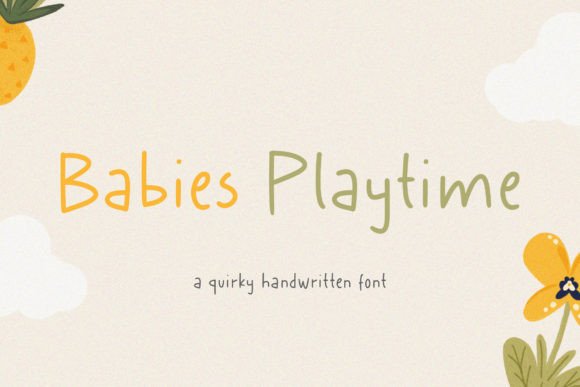
The Joy of Babies Playtime Font: A Designer’s New Best Friend
I still remember the day I stumbled upon the Babies Playtime font while working on a project for a client’s children’s book. I had been searching for the perfect font for hours, and just when I was about to give up, I found this sweet and friendly handwritten font that instantly captured the playful spirit of the story. It was love at first sight! 💕
The natural and unique style of Babies Playtime makes it incredibly fitting for a wide range of designs, from kids’ books and educational materials to branding and packaging. The only limit is your imagination! In this article, I’ll share my experience with this beautiful font, its features, and how to make the most of it in your designs.
• 💖 Sweet and friendly handwritten style that’s perfect for kids’ projects and designs that require a personal touch
• 🎨 Versatile and adaptable to various design contexts, from playful to elegant
• 🔍 Unique character set that adds a touch of whimsy to any design
• ⚠️ Some characters may require manual kerning for optimal spacing
• ⚠️ Limited language support, mainly focused on English and Western European languages
The Story Behind Babies Playtime
The story behind Babies Playtime is one of passion and creativity. Designed with love and care, this font aims to bring a touch of playfulness and innocence to your designs. Whether you’re a designer, crafter, or hobbyist, Babies Playtime is the perfect companion for your creative journey.
Font Name Babies Playtime Font
Author Timur type
Q: Is Babies Playtime suitable for body text?
A: While Babies Playtime is highly legible, it’s primarily designed for display and headline use. For body text, you may want to consider a more traditional font with better readability at small sizes.